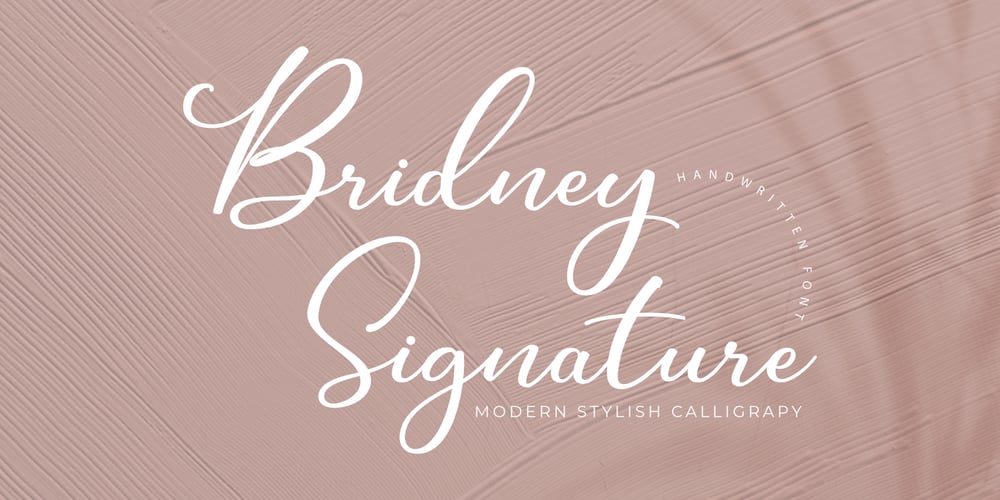
Bridney Signature Font Family was designed by Diki Hermawan and published by Typestory. Bridney Signature contains 1 styles and family package options. Bridney Signature is an enchanting handwritten font. This versatile script font has a wide spectrum of applications ranging from greeting cards to headlines and is guaranteed to add a romantic feel to your next project.What’s Included : Ligature, Alternate & Swashes Works on PC & Mac Simple installations Accessible in the Adobe Illustrator, Adobe Photoshop, Adobe InDesign, even work on Microsoft Word. PUA Encoded Characters – Fully accessible without additional design software.